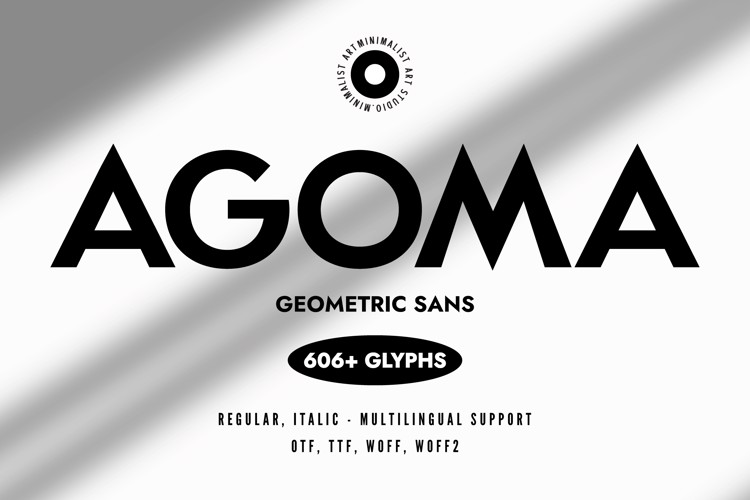
AGOMA Font
๐จ Font Name: Agoma by Minimalist Art Studio
๐จ Font Description: Agoma is a geometric sans serif with over 600 glyphs and multilingual supportโperfect for minimalist branding, tech interfaces, and editorial precision.
โ Complete Latin set + multilingual diacritics
โ Alternates, stylistic sets & ligatures
โ Numbers, small caps, and extended punctuation
โ Bonus italics and family styles